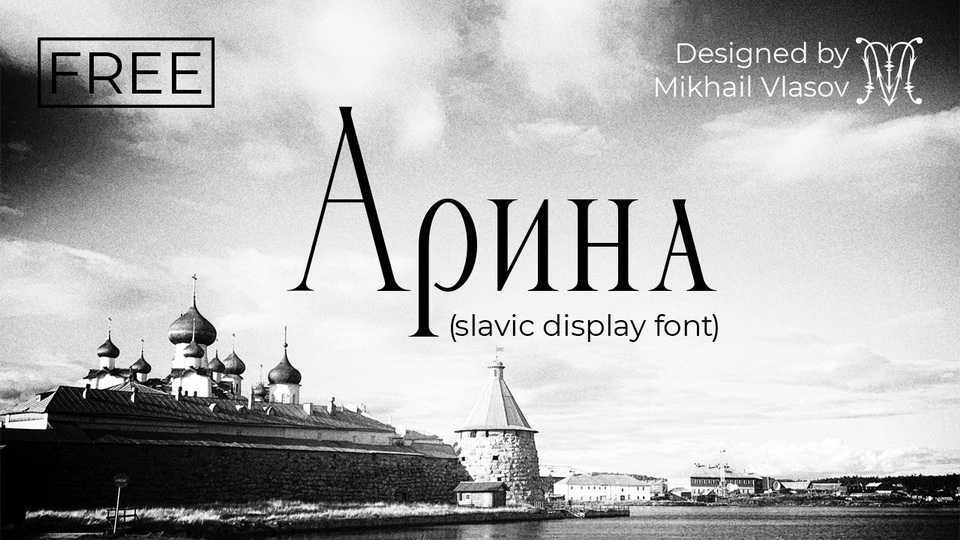
Download Arina font, a serif typeface inspired by traditional Slavic fonts such as Ustav and Vyaz. This is an attempt to give ancient scripts a modern look.
Designer: Misha Vlasov